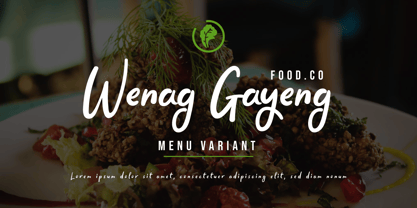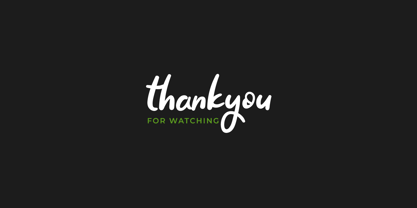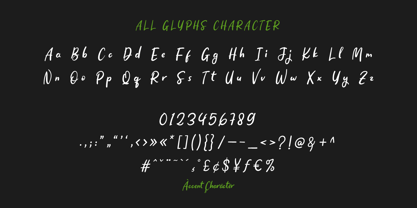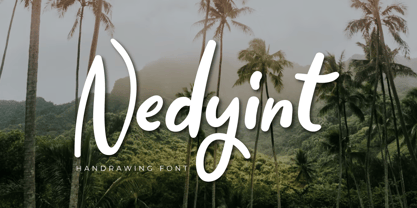
Nedyint
The Nedyint Font Family was designed by Lita Faolina and published by Product Type. Nedyint contains 1 styles.
Nedyint is a calming and elegant handwritten font. With gentle touches and balanced proportions, it brings a sense of peace and sophistication to every design project. It is suitable for titles, quotes, or packaging designs that want a simple yet captivating look.